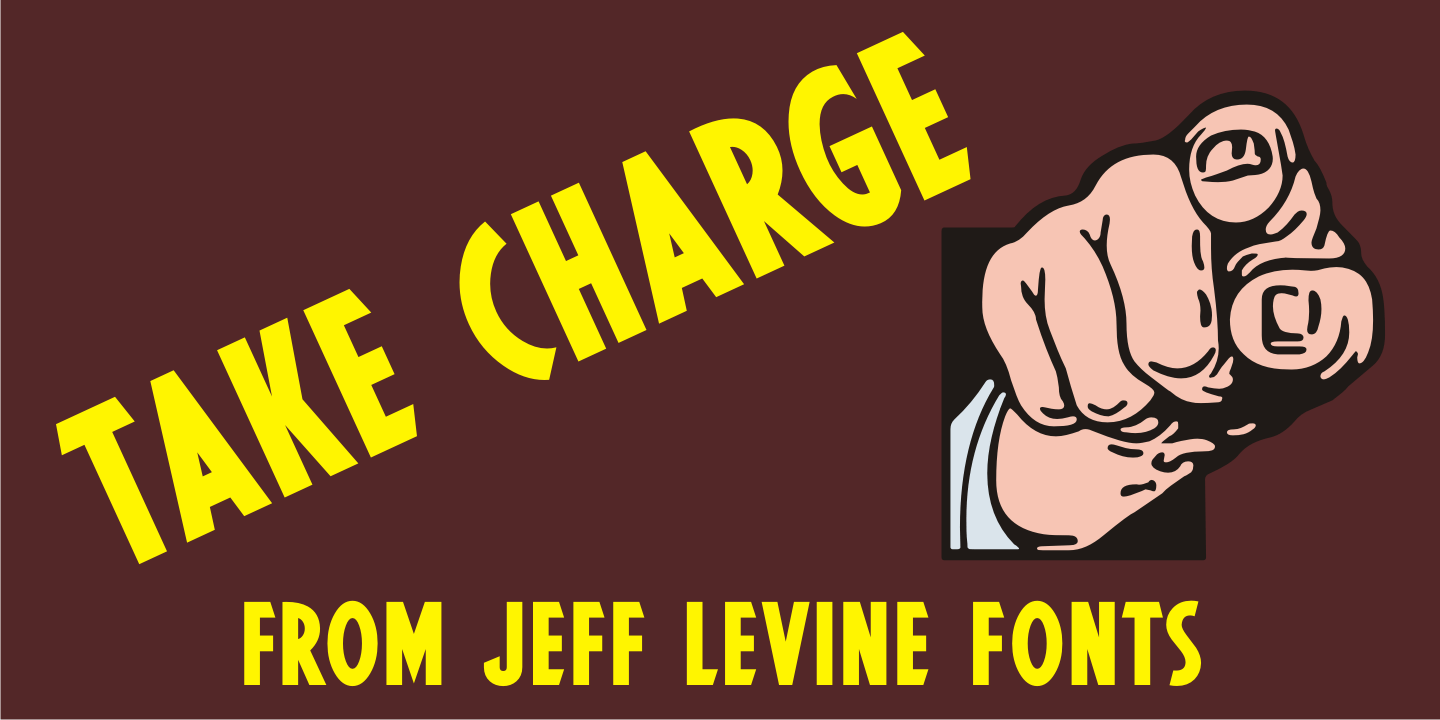
Take Charge
Take Charge JNL is based on the opening title card for the 1936 film 'The Charge of the Light Brigade' starring Errol Flynn and Olivia de Havilland, Donald Crisp and David Niven.
The typeface is a simple, bold titling font with the slight feel of Art Deco influence in its design.
Take Charge JNL Regular by Jeff Levine Fonts